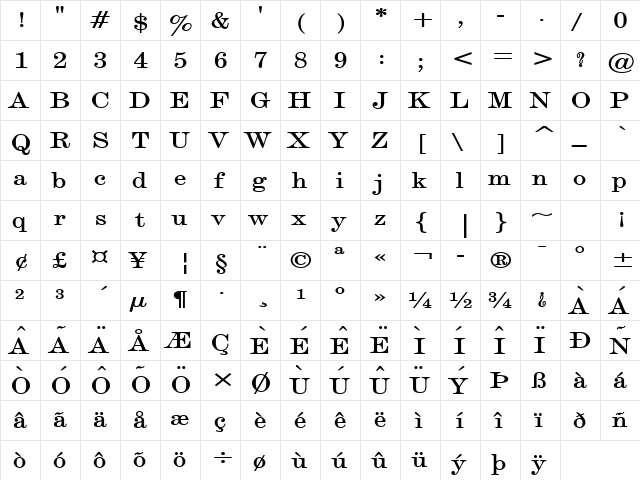
Devine Wide Bold
Design Context for Devine Wide Typeface
Devine Wide is a composed and adaptable typeface that performs quietly and consistently across a wide range of design contexts. The heavy weight commands attention and anchors typographic hierarchies.